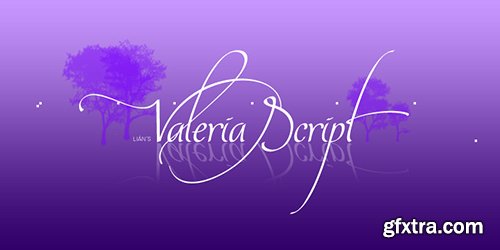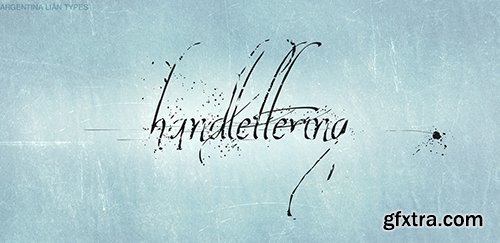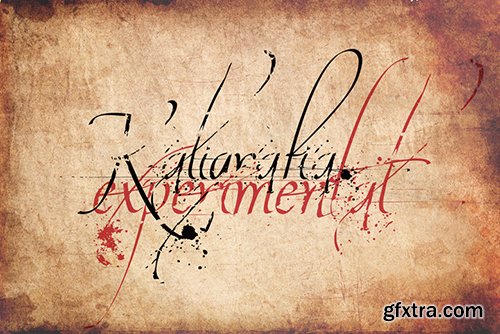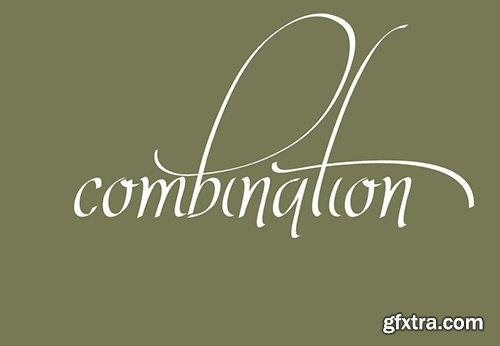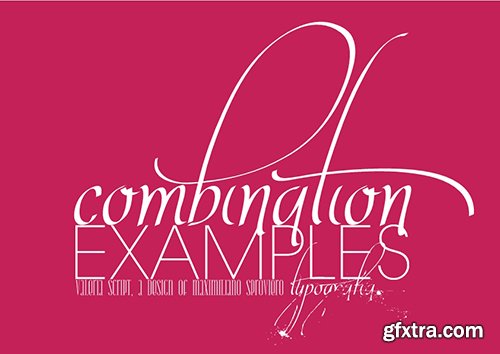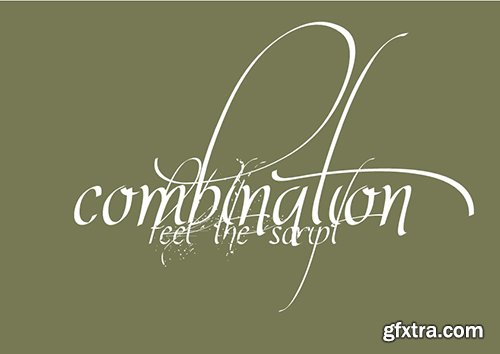
A mix of elegance, sensuality, legibility. This Open Type, called Valeria Script, tries to be sentimental.Very useful to those who love flowing script, based on calligraphers, with a personal touch of the designer Maximiliano Sproviero. This ornate is commonly used on signature flourish to invitations, packaging, restaurant menus, display, because of its decorative qualities. Valeria Script has all the Open Type functions, meaning every written word will be original, with the possibility to make every glyph look different. The type has lots of alternate characters, decorative ones, swashes to simulate signatures, ligatures which ligate Caps with minuscules.Valeria Script Cola Pen is the choice for those who are more sensitive. Cola Pen is the name of a calligraphy home-made tool being its particularity that it makes ink explosions while writing. A word written by Valeria Cola Pen will be unique; the ink splats give the sensation of a real manuscript with a gorgeous landscape.